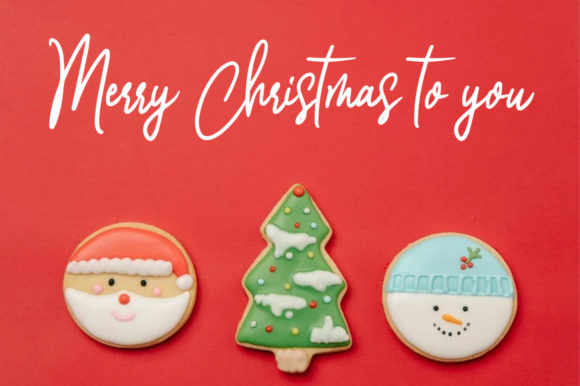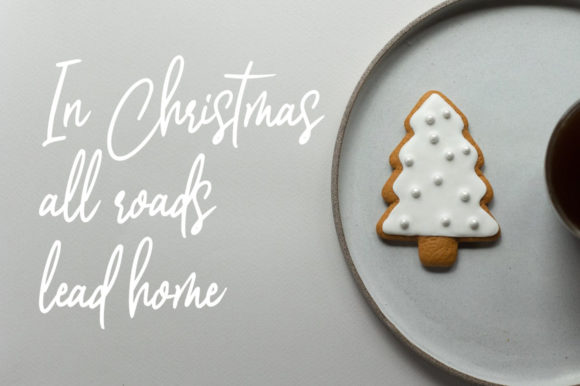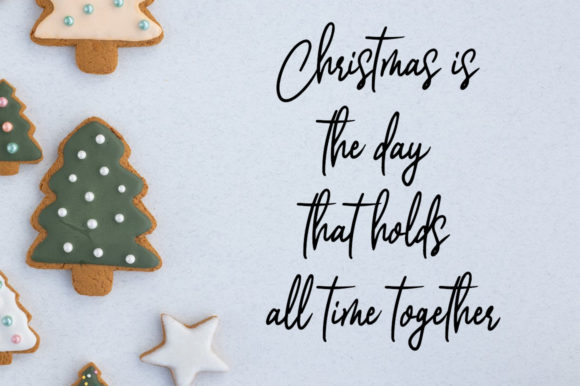
Introducing Christina Font: The Ultimate Christmas-Inspired Handwritten Font
Are you looking for a stylish and festive font to elevate your designs, especially during the holiday season? Look no further than Christina Font, a beautiful handwritten font that exudes a Christmas style like no other. In this article, we’ll dive into the world of Christina Font, exploring its features, uses, and benefits for designers and crafters.
What is Christina Font?
Christina Font is a stunning handwritten font that captures the essence of Christmas. Its elegant and cursive strokes make it perfect for a wide range of design projects, from wedding invitations and thank you cards to quotes, greeting cards, logos, and more. Whether you’re a designer, crafter, or DIY enthusiast, Christina Font is sure to become your go-to choice for adding a touch of festive flair to your creations.
Key Features of Christina Font
- Handwritten style: Christina Font boasts a beautiful, handwritten style that’s perfect for adding a personal touch to your designs.
- Christmas-inspired: The font’s Christmas style makes it ideal for holiday-themed projects, but it’s also versatile enough to use in other designs throughout the year.
- Stunning on various designs: Christina Font looks amazing on photography, wedding invitations, thank you cards, quotes, greeting cards, logos, and more.
- Elegant and cursive strokes: The font’s elegant and cursive strokes add a touch of sophistication and whimsy to your designs.
Uses of Christina Font
Christina Font is incredibly versatile and can be used in a variety of design projects, including:
- Wedding invitations: Add a touch of elegance and romance to your wedding invitations with Christina Font.
- Holiday cards and greetings: Spread holiday cheer with Christina Font’s festive and fun style.
- Photography: Use Christina Font to add a personal touch to your photo captions, quotes, and descriptions.
- Logos and branding: Christina Font’s unique style makes it perfect for creating custom logos and branding materials.
- Crafting and DIY projects: Add a professional touch to your crafting and DIY projects, such as handmade cards, gift tags, and more.
Benefits of Using Christina Font
So, why choose Christina Font for your design projects? Here are just a few benefits:
- Unique and eye-catching: Christina Font’s distinctive style is sure to grab attention and set your designs apart.
- Easy to read and use: Despite its elegant and cursive strokes, Christina Font is surprisingly easy to read and use, even for beginners.
- Versatile: Christina Font can be used in a wide range of design projects, from digital to print.
- Festive and fun: Christina Font’s Christmas style adds a touch of festive fun to your designs, perfect for the holiday season.
Tips and Tricks for Using Christina Font
To get the most out of Christina Font, here are a few tips and tricks:
- Experiment with colors and textures: Christina Font looks amazing in a variety of colors and textures, so don’t be afraid to experiment and find the perfect combination for your design.
- Pair with other fonts: Christina Font pairs beautifully with other fonts, so try combining it with a bold or sans-serif font for added contrast.
- Use it sparingly: While Christina Font is stunning, it can be overwhelming if used too much. Use it sparingly to add a touch of elegance and whimsy to your designs.
In conclusion, Christina Font is a must-have for designers and crafters looking to add a touch of festive flair to their designs. With its elegant and cursive strokes, Christmas-inspired style, and versatility, Christina Font is the perfect choice for a wide range of design projects. Whether you’re creating wedding invitations, holiday cards, or logos, Christina Font is sure to become your go-to font.